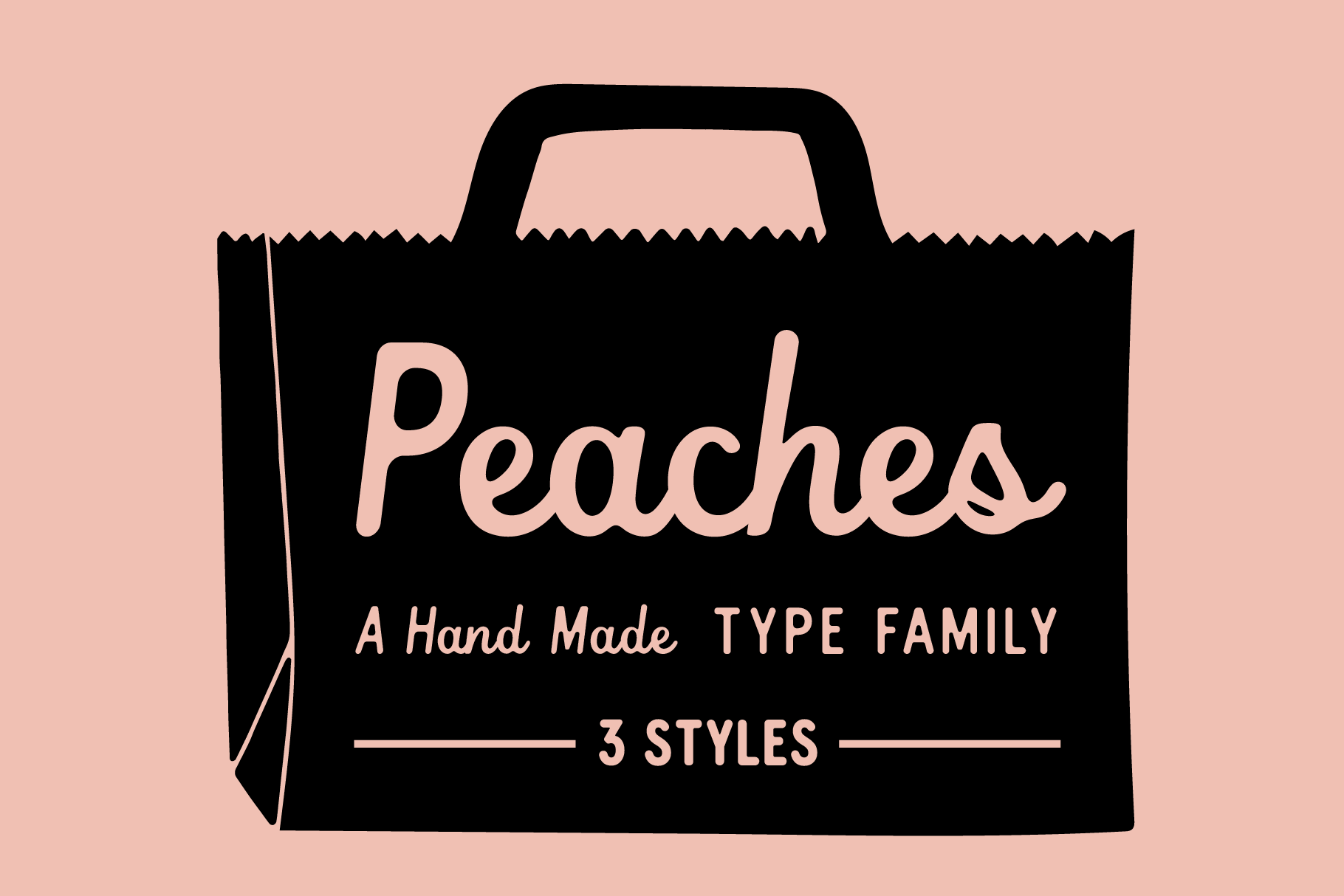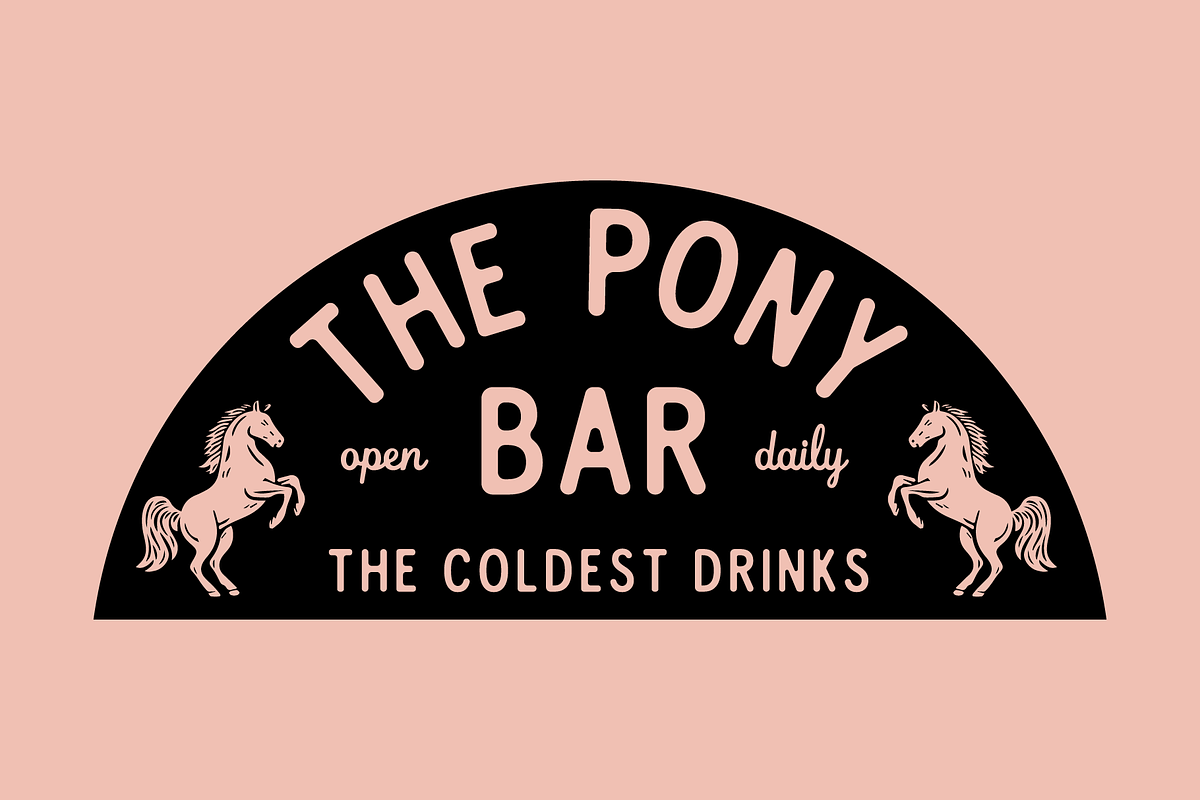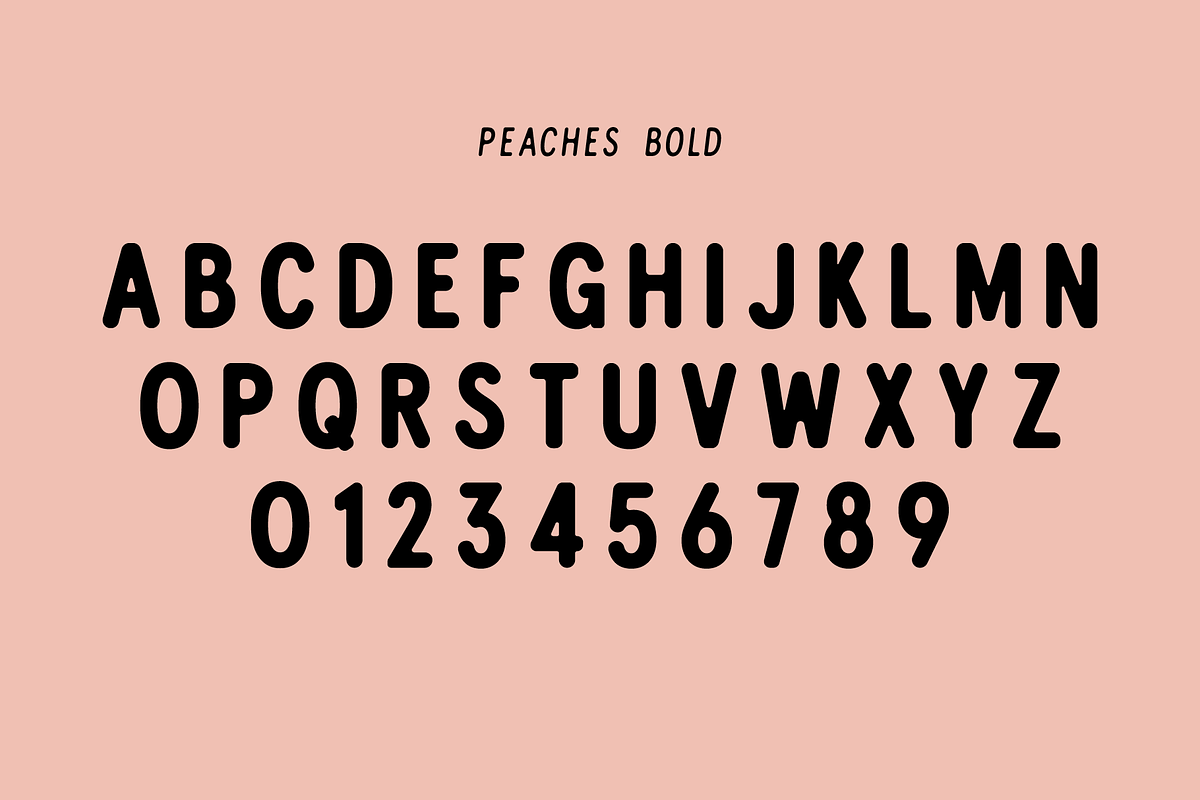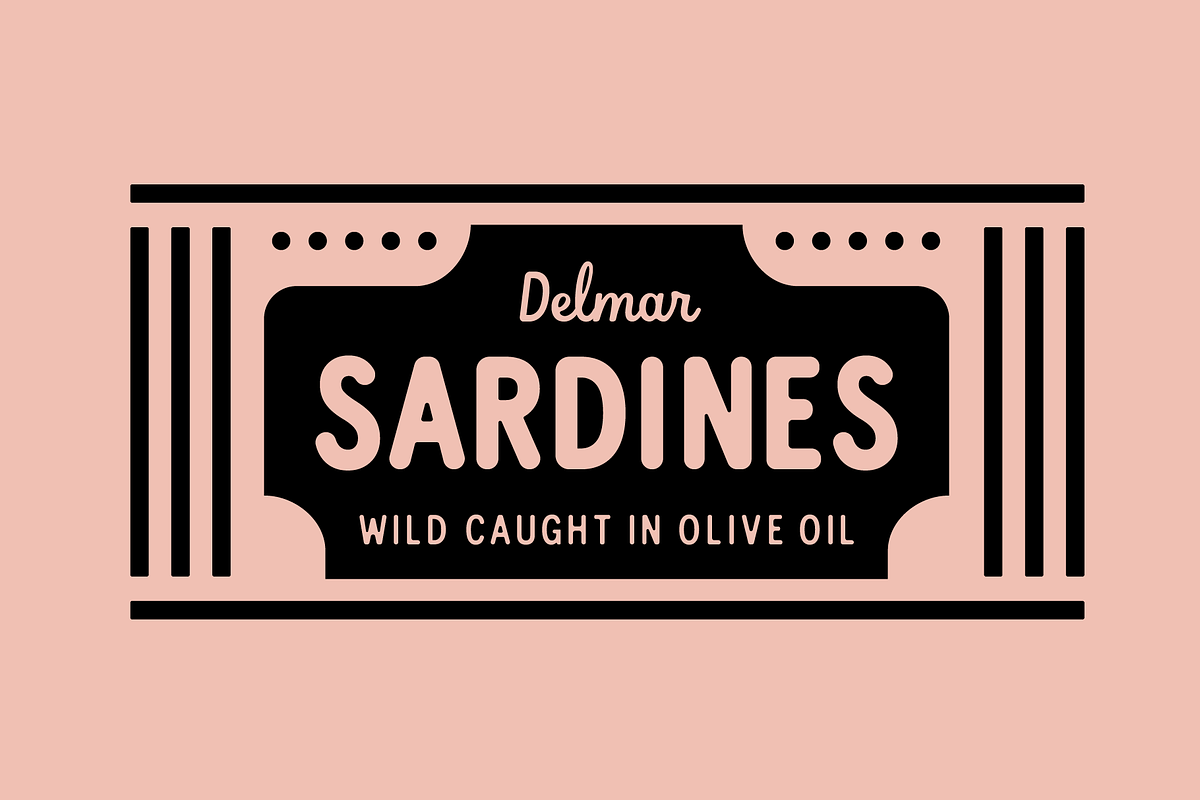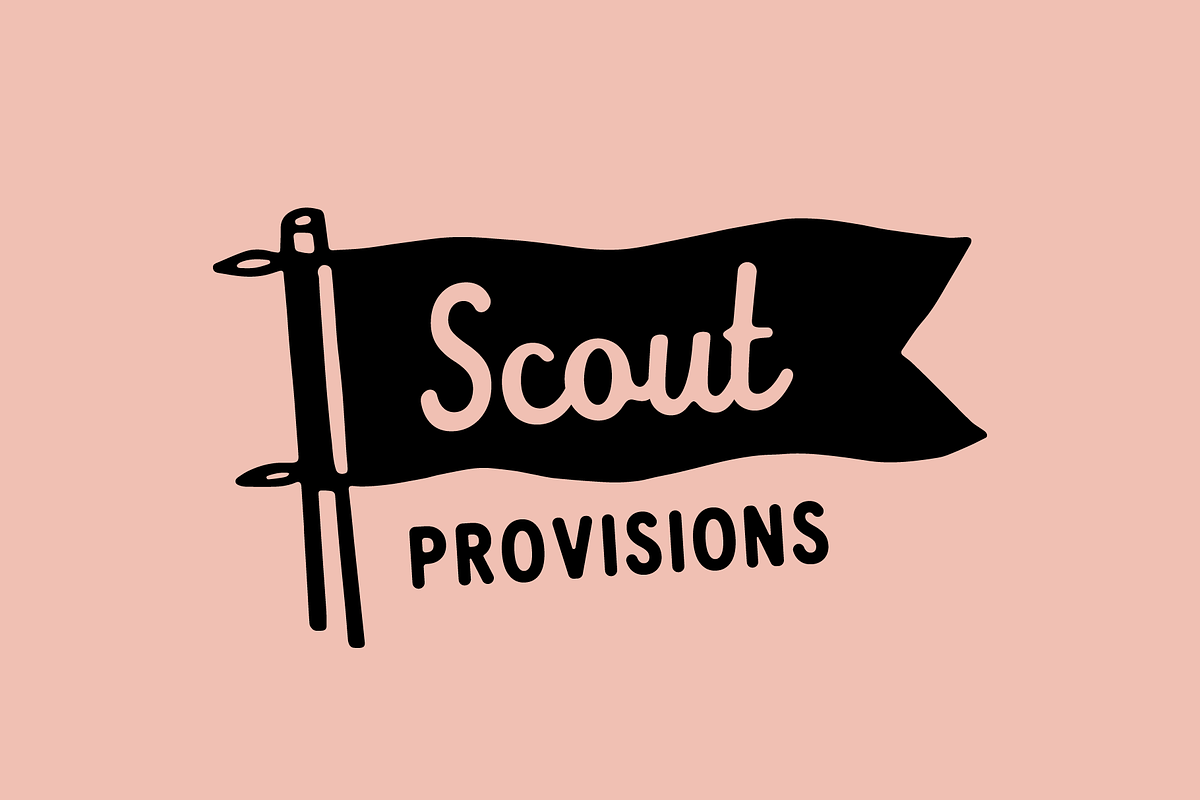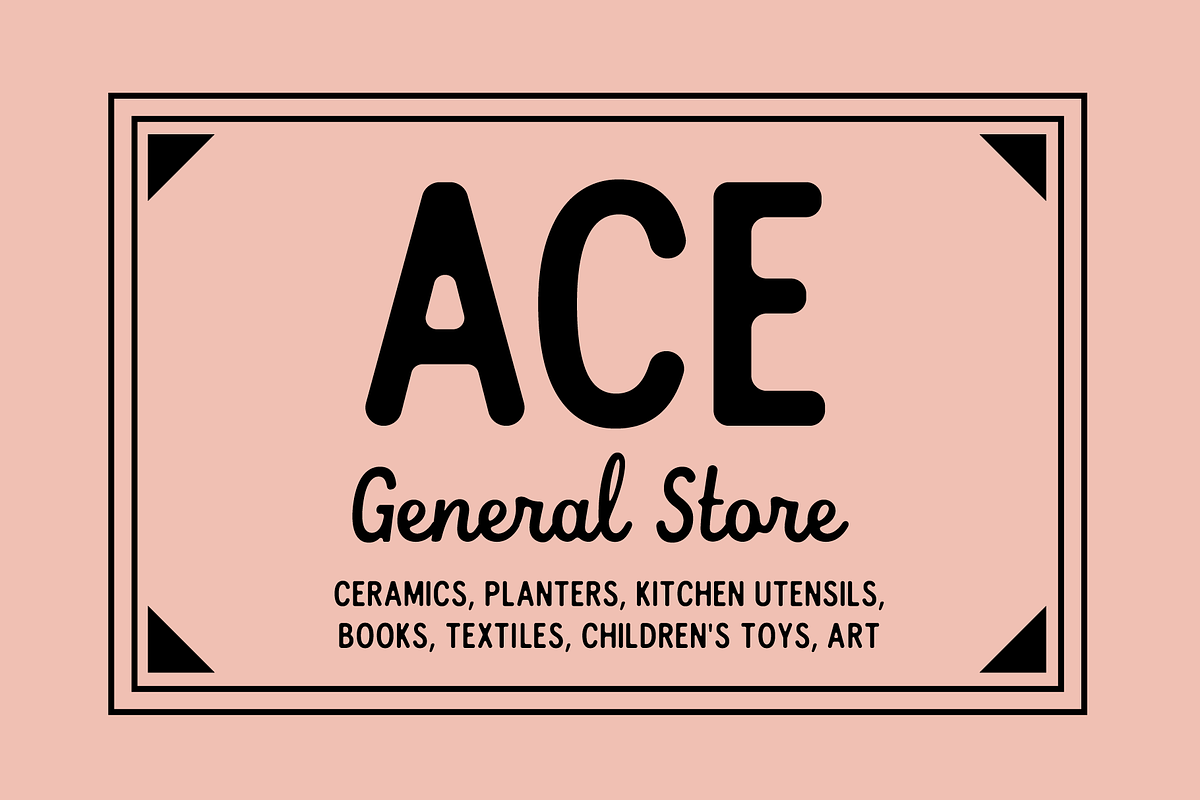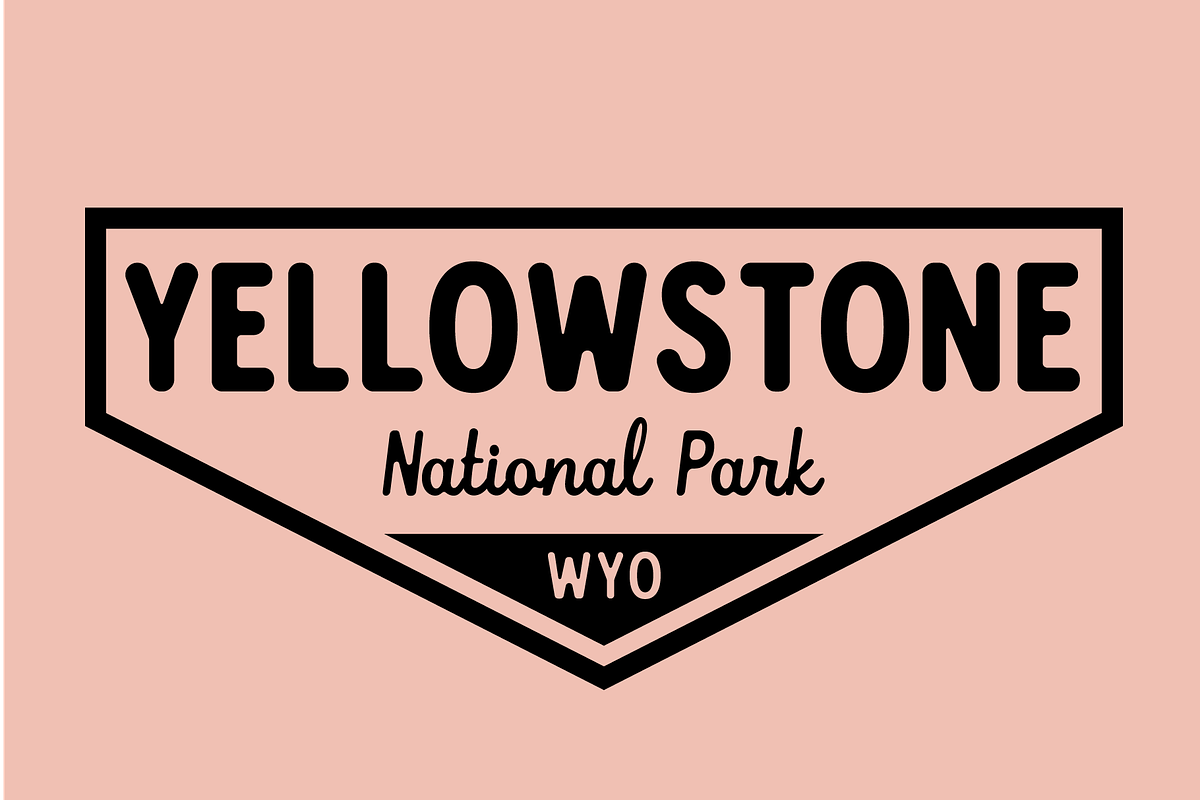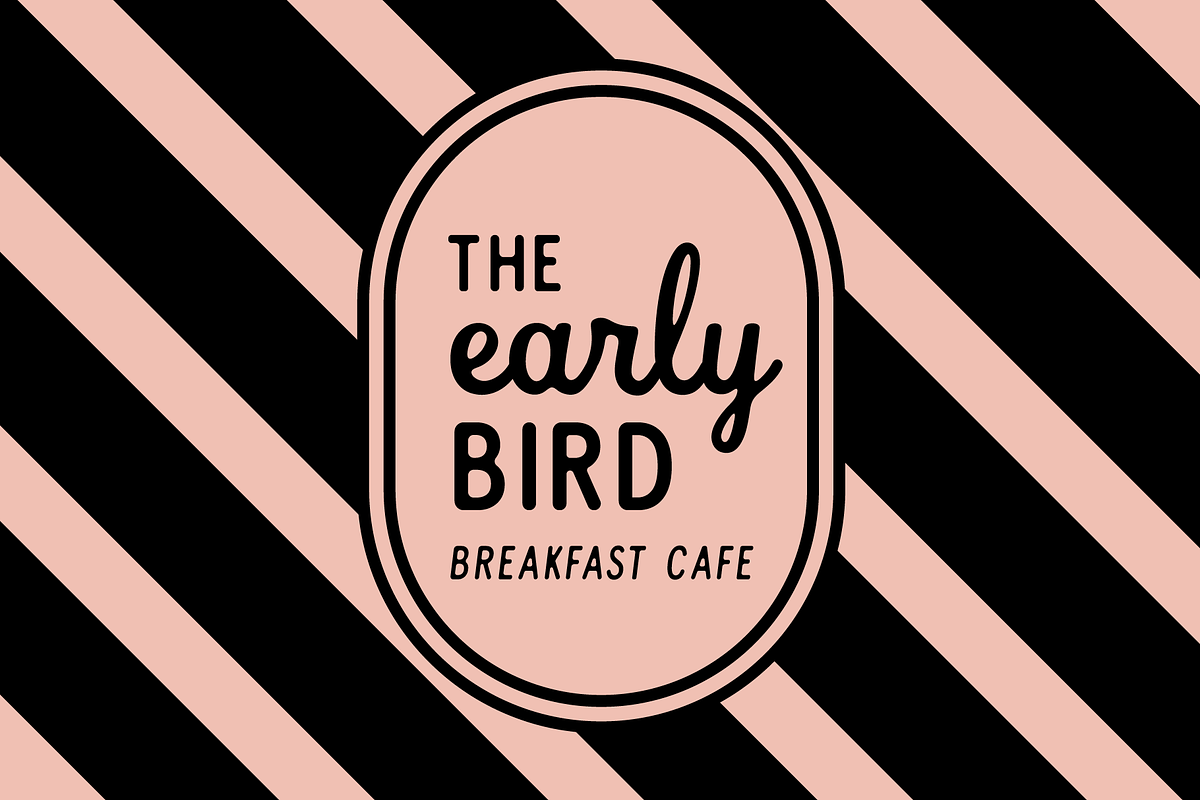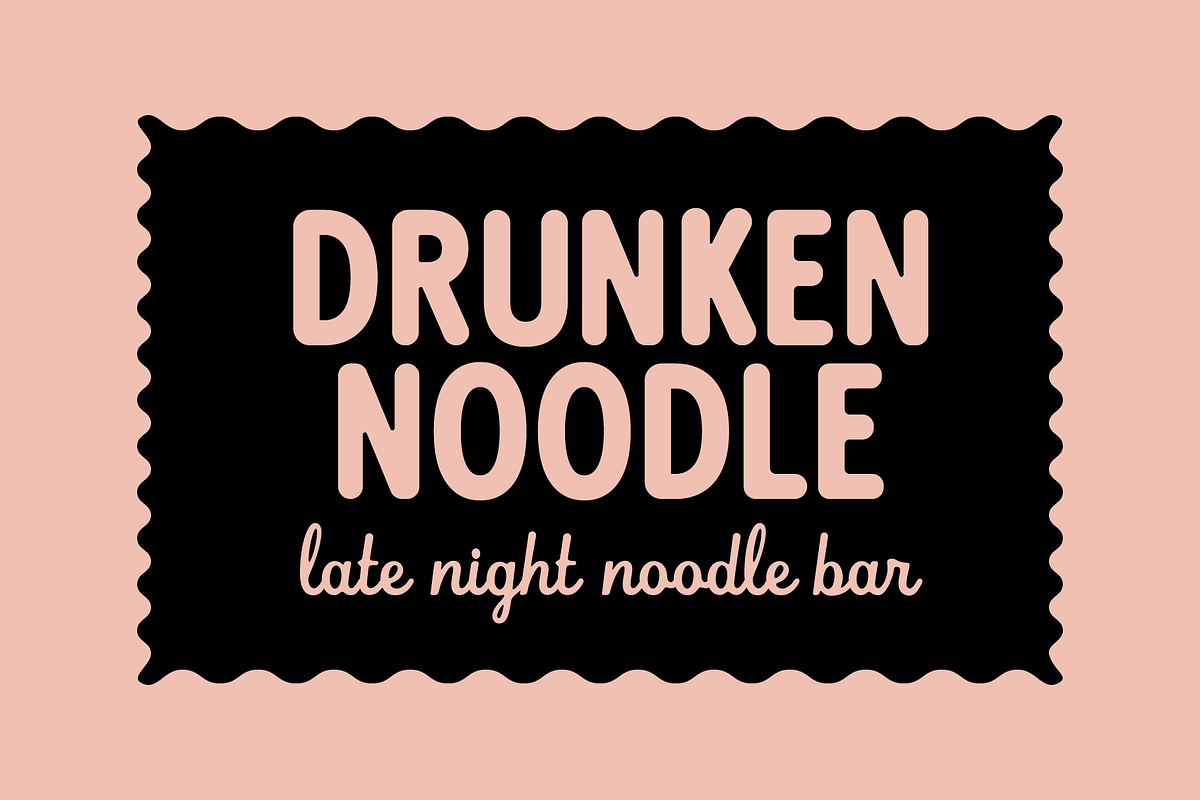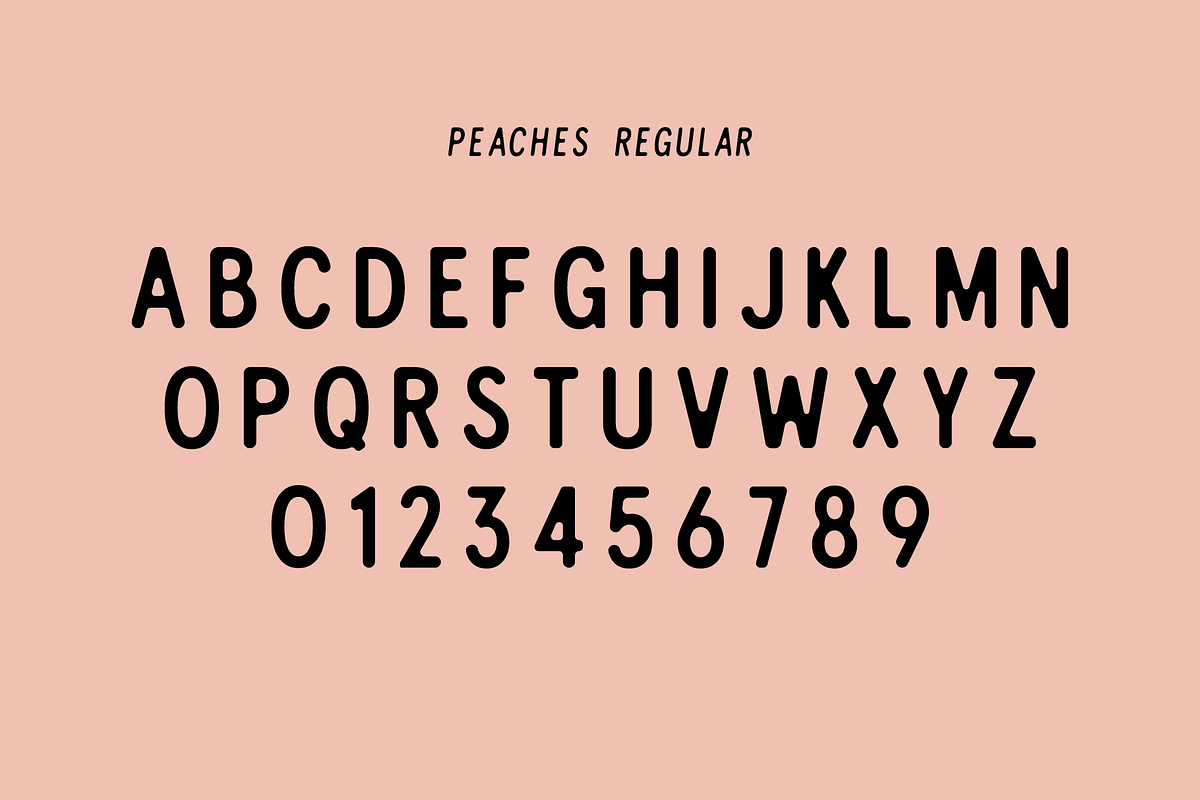
Peaches - Font Family
Peaches is a cheerful, homespun typeface family that brings warmth and charm to every project. It includes three styles: a clean All-Caps Regular, a bold and friendly All-Caps Bold, and a flowing Script—perfect for pairing headlines with hand-lettered flair.
Inspired by general stores, roadside diners, and sunny summer camps, Peaches mixes vintage Americana with modern playfulness. Whether you're designing packaging, event invites, kids’ goods, or brand logos, this trio delivers personality in spades.
Peaches Regular (All Caps)
Peaches Bold (All Caps)
Peaches Script